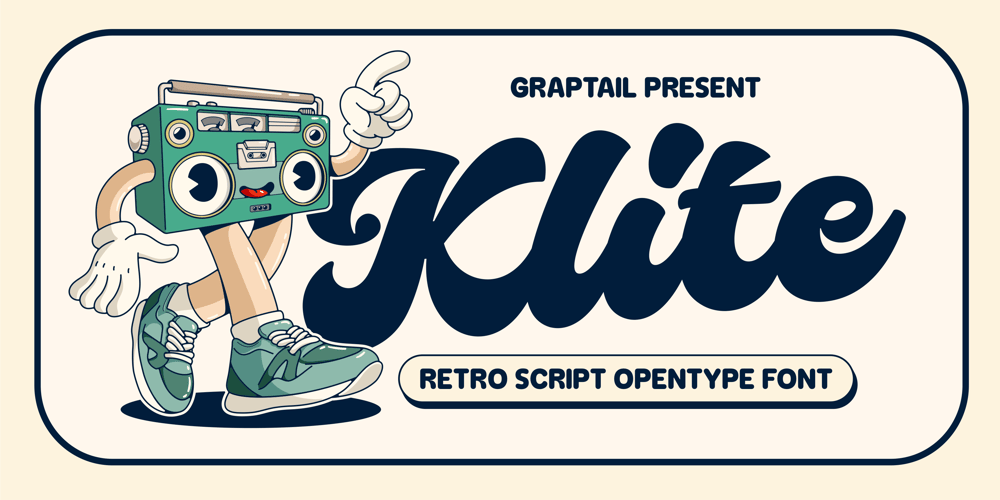
Klite Script Font Family was designed by Teuku Deky Firnanda and published by Graptail. Klite Script contains 1 styles and family package options. Klite – Retro Script is a stylish font with a modern and retro look. It comes with alternatives and ligatures and helps create stunning logos, quotes, blog posts, branding projects, magazine imagery, wedding invitations, and more.